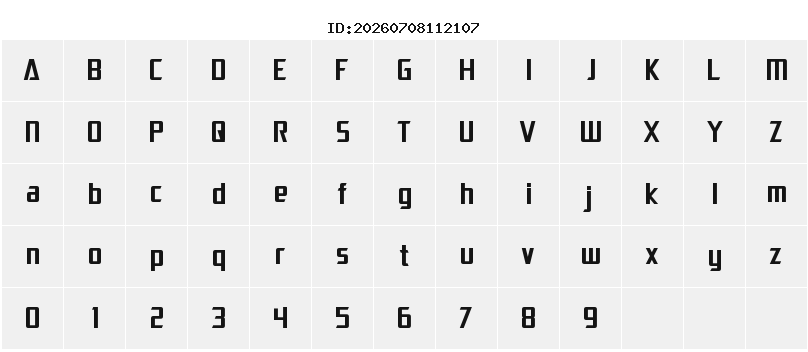
• Font Name: Dai-Atlas
• Designer: Neale Davidson
About Dai-Atlas.otf
Dai-Atlas.otf is a modern, elegant sans-serif font designed for ultimate readability and visual harmony. Perfect for branding, headlines, web design, and print materials.